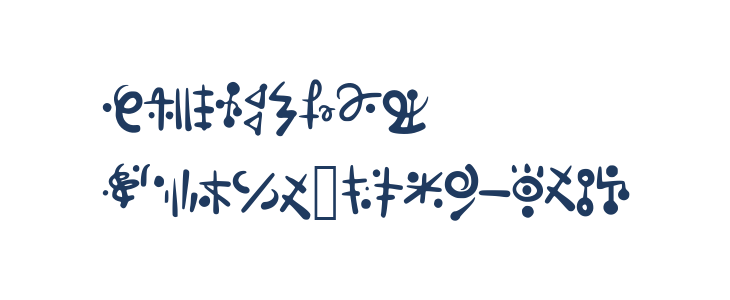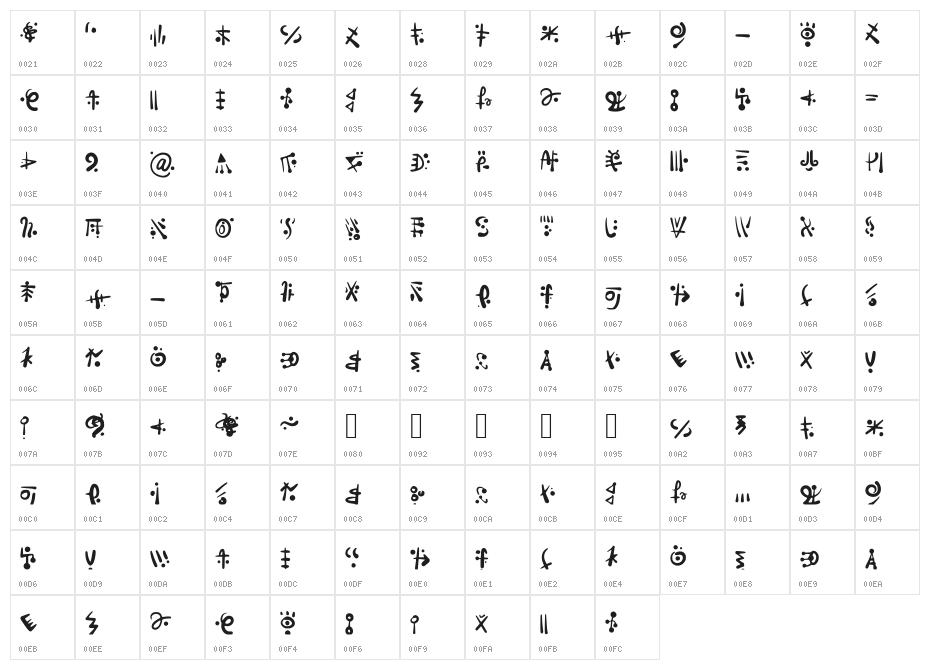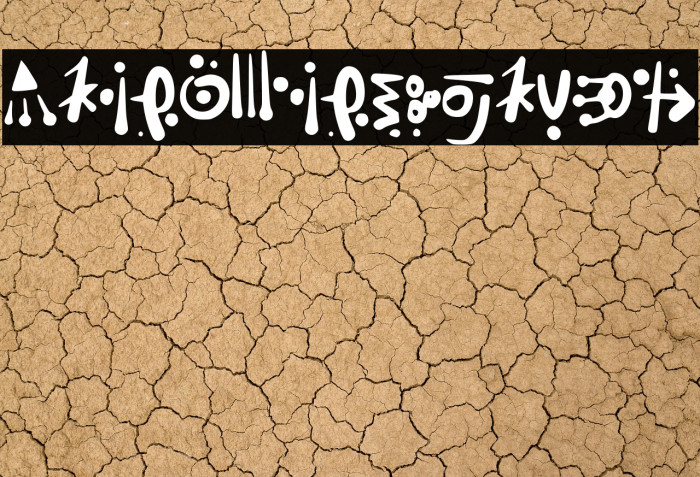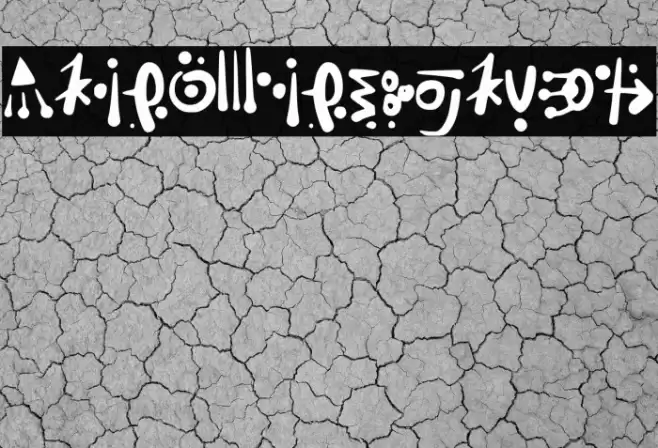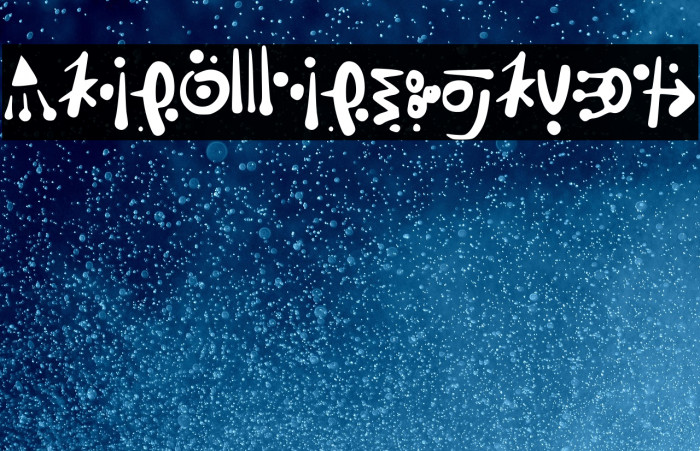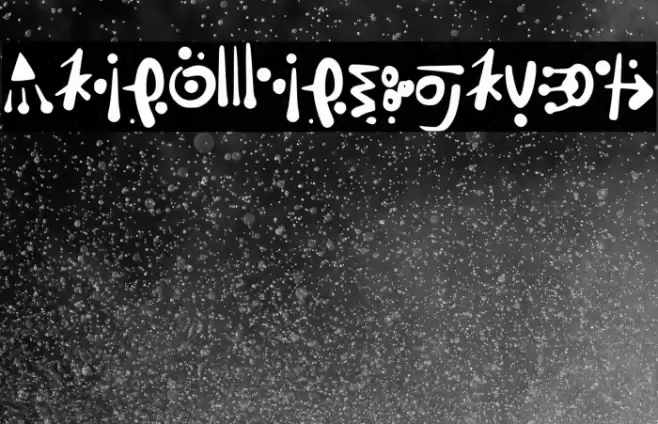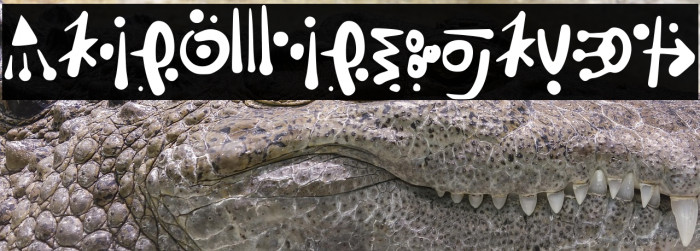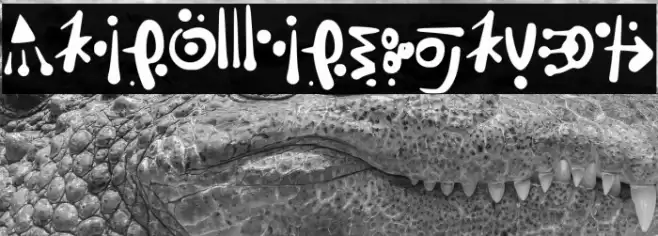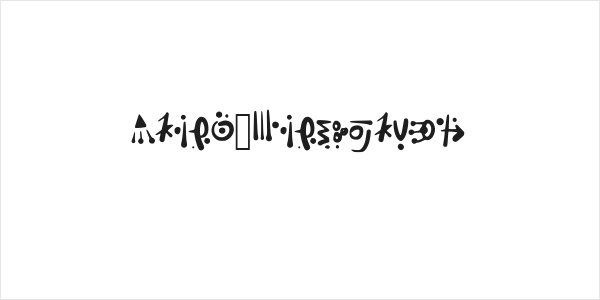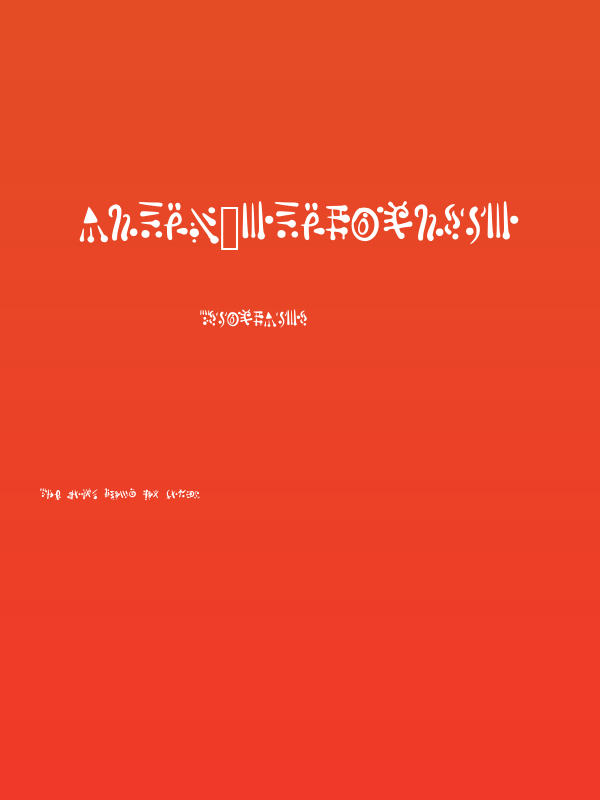
Alien_Hieroglyph Font
Alien_Hieroglyph Description
This design features a series of intricate and abstract symbols that resemble a fictional or alien script. The characters are composed of various geometric shapes, dots, and lines, creating a mysterious and otherworldly appearance. The symbols are highly decorative, with each character having a unique and complex structure. The overall look is reminiscent of ancient hieroglyphs or runes, suggesting a sense of mystery and antiquity. The design is bold and visually striking, with a high level of detail that draws the eye and invites closer inspection.
| Use Case | Logos, Posters, Game Design |
| Proposed Projects | Ideal for use in science fiction projects, fantasy games, or as a decorative element in graphic design to evoke a sense of mystery and the unknown. |